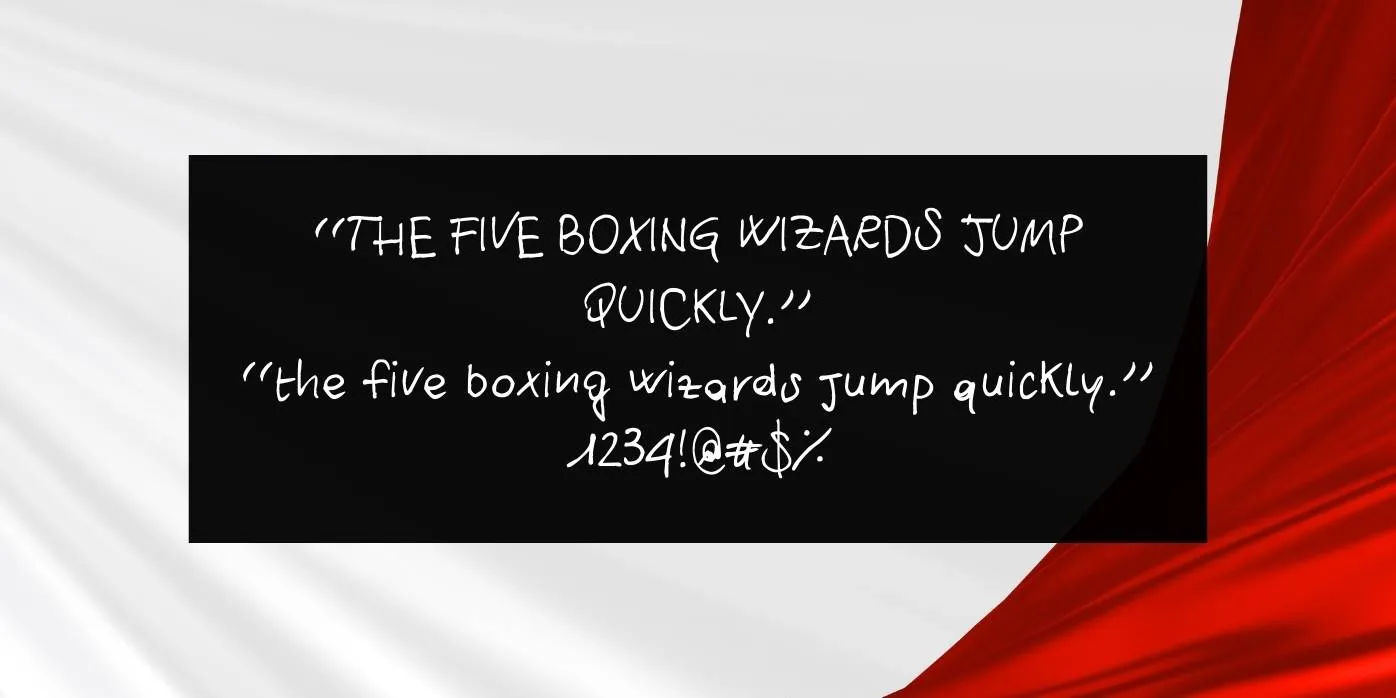
Circular Quay Font
Circular Quay Font is a script typeface that was designed by Australian typeface designer Oz Cooper in 2013. The typeface is named after the iconic Circular Quay in Sydney, Australia. This Font was originally designed as a handwritten typeface for use in headlines and short paragraphs of text. It has since been expanded to include a full set of Latin characters, as well as support for Cyrillic and Greek languages.
The typeface is characterized by its simple, clean lines and rounded curves. Moreover, you can also try arvo font for your logos and other typography designs as well. It is available in seven weights, from light to black. This Font is available for both desktop and web use.